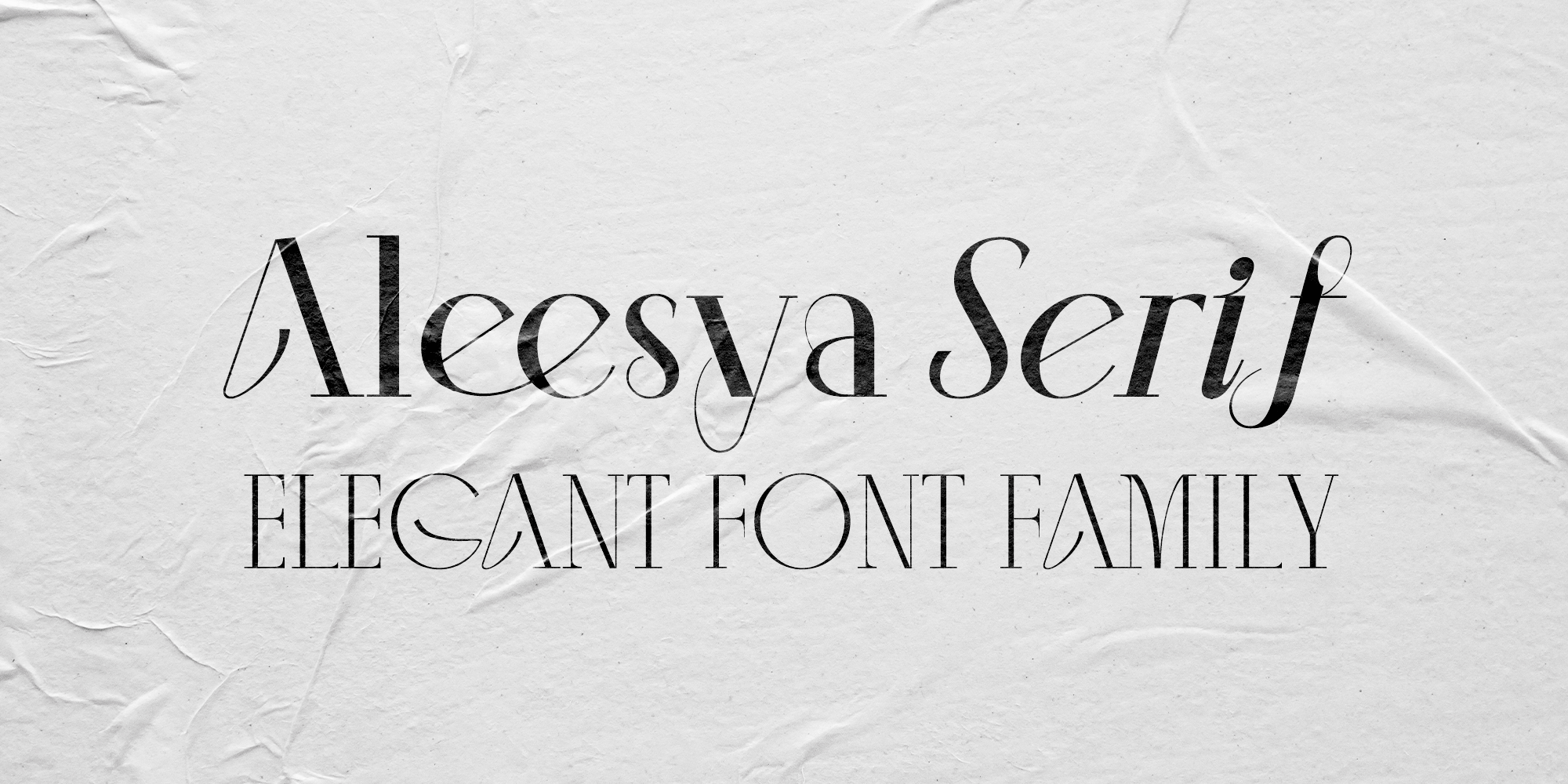
Aleesya Serif Font is a distinguished and exquisitely elegant typeface, perfectly suited for projects that demand a sense of classic sophistication and timeless appeal. Imagine it gracing the luxurious pages of a high-fashion magazine, adding an air of refined heritage to premium product branding, or providing a distinguished aesthetic for sophisticated wedding invitations and formal event materials. It's also an excellent choice for crafting traditional book designs, enhancing the readability of editorial content, or bringing a polished, authoritative feel to corporate reports and academic publications. If you're looking to convey tradition, grace, and an undeniable sense of enduring quality, Aleesya Serif Font is an outstanding selection.
What makes Aleesya Serif Font so exciting? It’s its harmonious blend of classic serif attributes with a subtly modern refinement, resulting in a typeface that feels both deeply rooted and refreshingly versatile. This font features beautifully balanced proportions, elegant serifs, and precise detailing that contribute to an exceptionally pleasant reading experience, making it ideal for both commanding headlines and extended body text. Its inherent grace ensures that your content is presented with dignity and professionalism, allowing the message to be absorbed without visual distraction. Designers will appreciate its versatile application in lending an air of established credibility and artistic integrity to any project, ensuring that your visuals resonate with both contemporary taste and a timeless sense of beauty.
The Aleesya Serif Font family is typically designed with a comprehensive range of weights and styles, providing extensive flexibility for designers to create nuanced typographic compositions. You can generally expect to find variations such as Light, Regular, Medium, Bold, and potentially a Black or Display weight, often accompanied by matching italic versions. This extensive family ensures that Aleesya Serif Font can be used to create sophisticated typographic hierarchies, maintain consistent branding across diverse mediums, and offer flexible design solutions for both print and digital environments. Discover the unwavering elegance and functional charm of Aleesya Serif Font Free Download for your next design masterpiece.